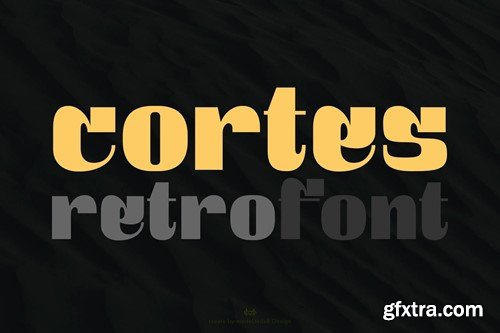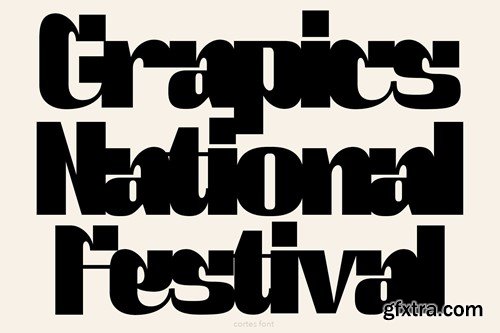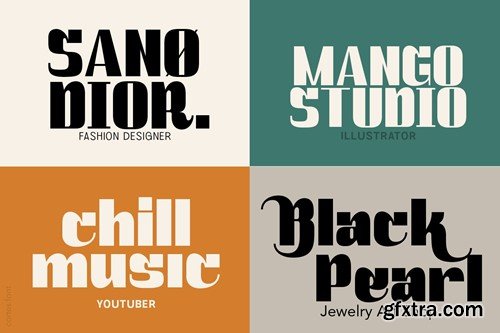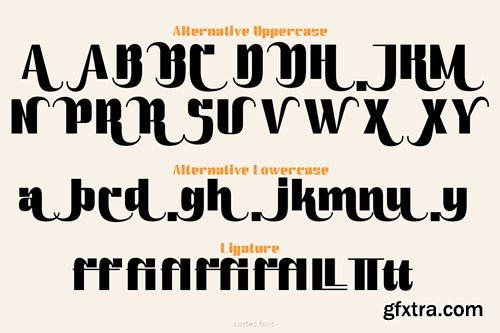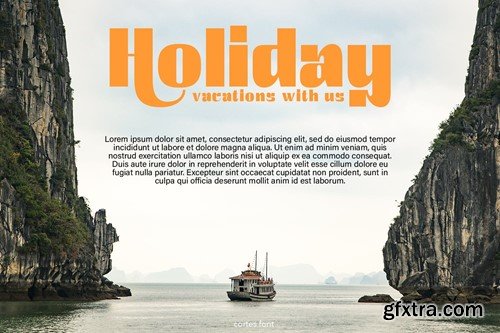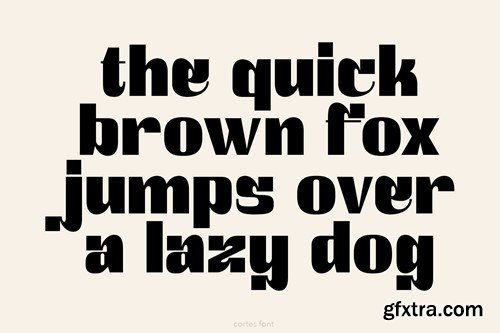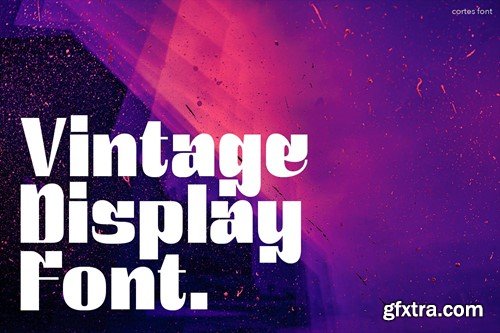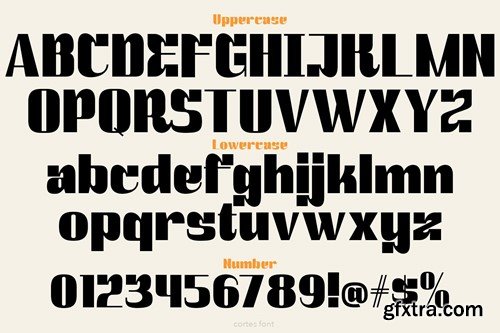
Cortes Retro Font
Cortes is a retro display font, come with single weight, legible and expressive shapes. A lot of stylish alternates characters will makes this font suitable for your any project design.